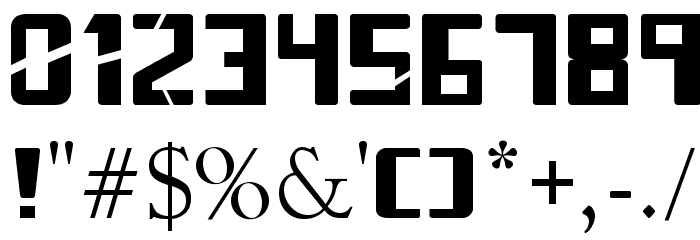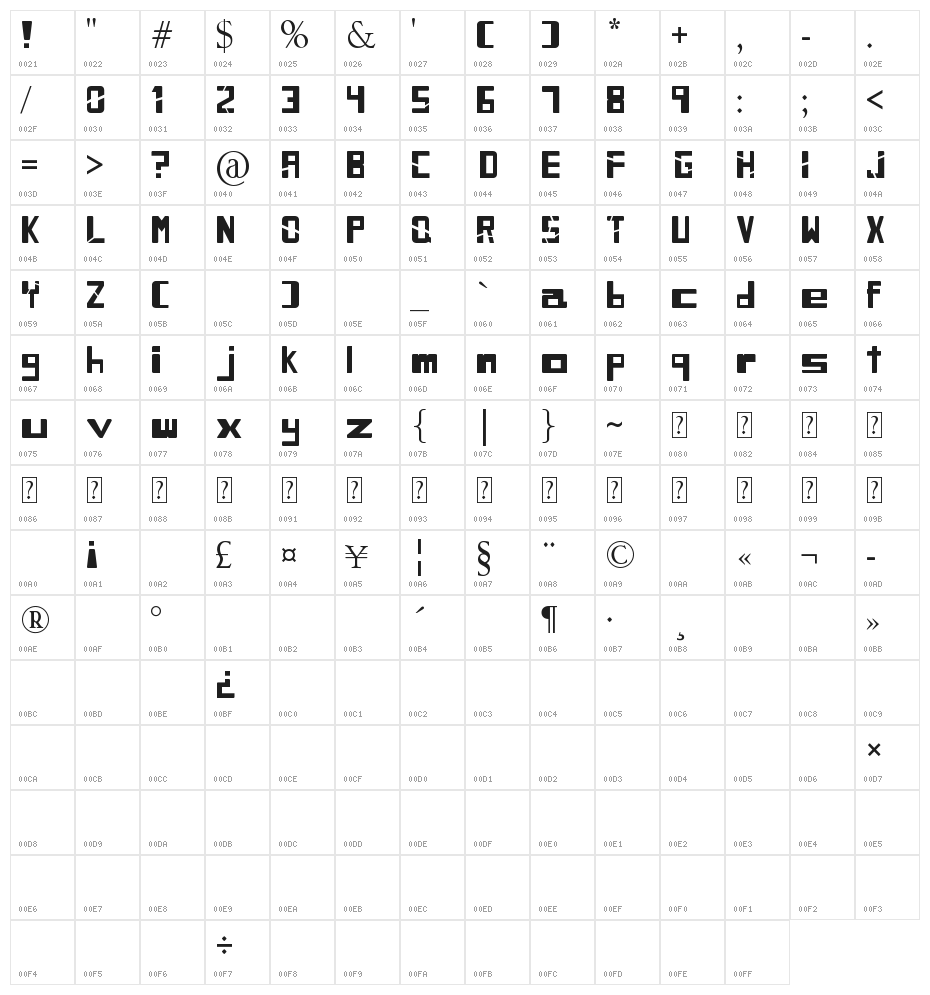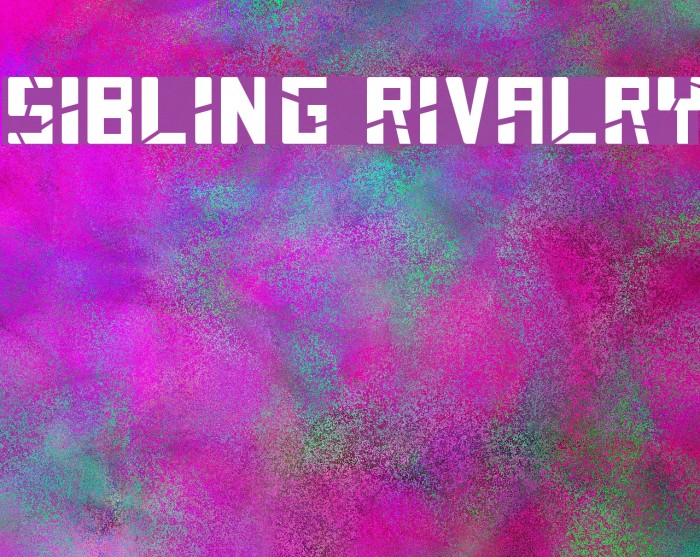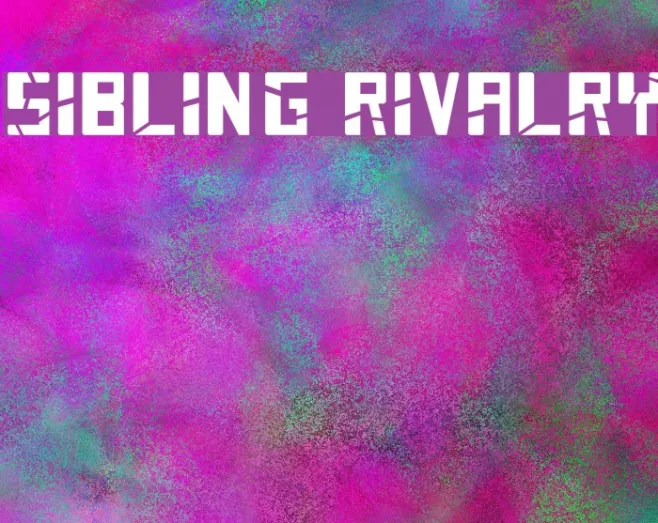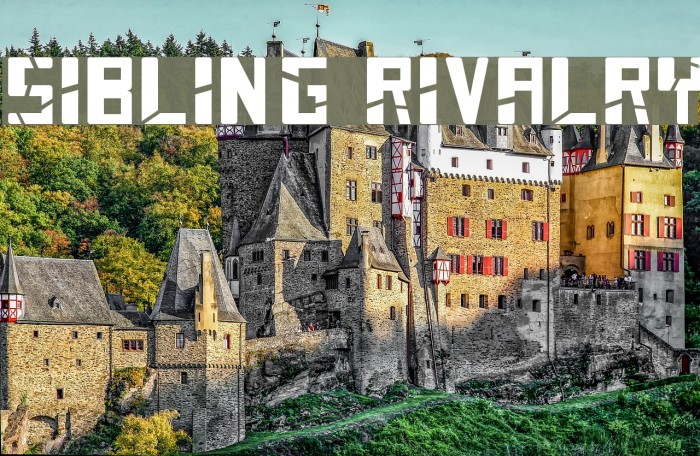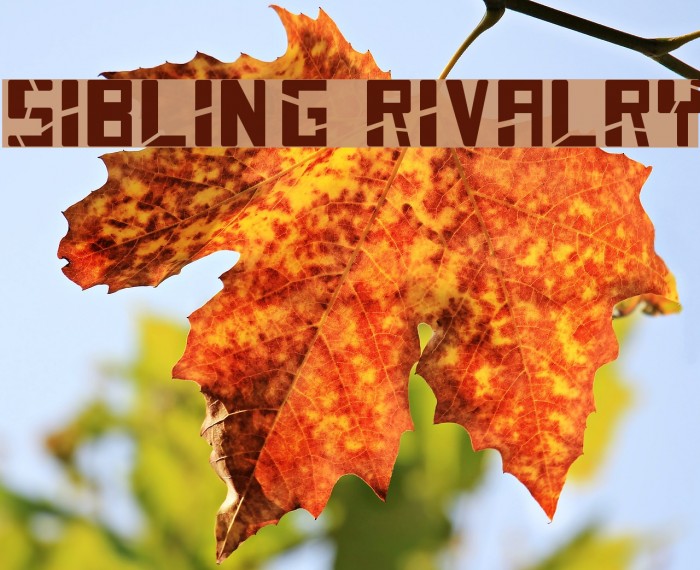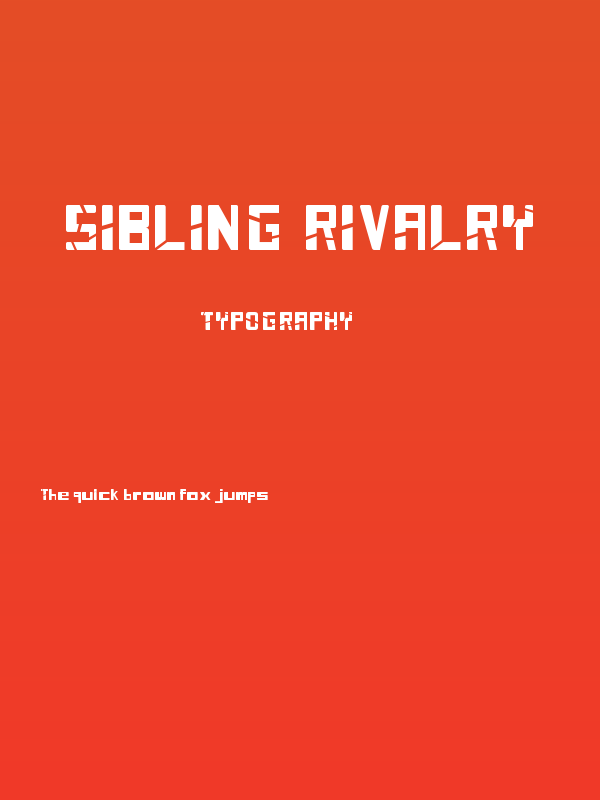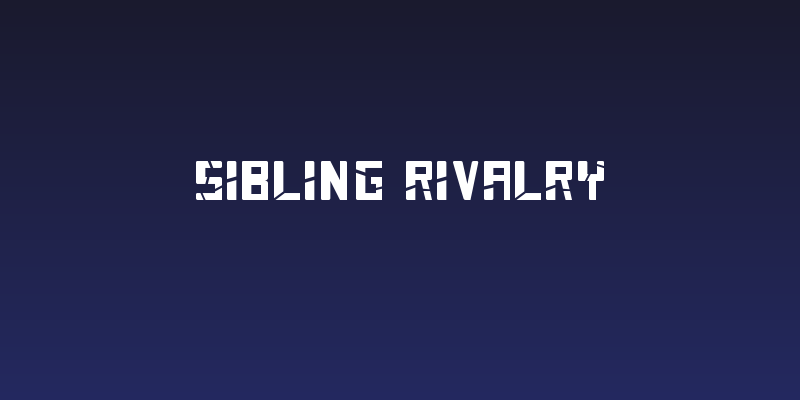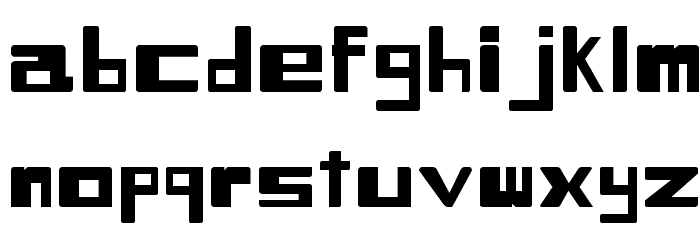
SIBLING RIVALRY Font
SIBLING RIVALRY Description
This font features a bold, geometric design with a modern and edgy aesthetic. The uppercase letters are characterized by sharp angles and unique cutouts, giving them a fragmented appearance that adds a sense of dynamism and movement. The lowercase letters maintain a similar style but with slightly softer edges, creating a cohesive look across the typeface. The numerals and special characters follow the same design principles, ensuring consistency throughout. This font is ideal for projects that require a strong visual impact and a contemporary feel.
| Proposed Projects | Ideal for branding, posters, album covers, and any project needing a striking, modern typeface. |